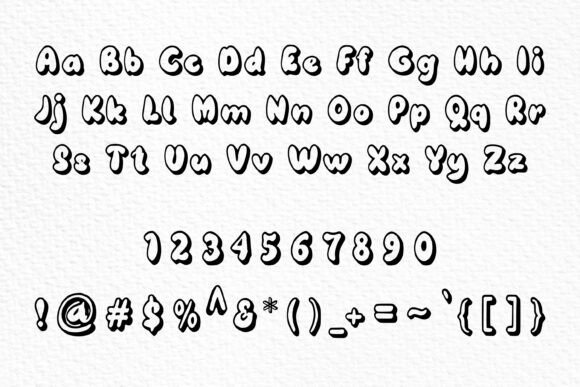
Unleash Your Creativity with the Bubble Pop Font
Have you ever stared at a blank canvas, notebook, or design screen, waiting for the perfect idea to strike? The moment when the wheels start turning, and your imagination runs wild, is a magical one. It’s the spark that sets your creative journey ablaze, and with the right tools, it can be even more extraordinary.
Enter the Bubble Pop Font, a versatile and captivating typeface designed to bring your artistic vision to life. This elegant and modern font is perfect for a wide range of creative projects, from branding and book covers to posters, packaging, and merchandise. Whether you’re looking for a playful touch or a bold statement, the Bubble Pop Font adapts effortlessly to your style and artistic expression.
Bubble Pop Font Key Features
- Unique Characteristics: Features a playful, rounded design with a bubble-like appearance, adding a touch of whimsy to any text.
Bubble Pop Font Review
I recently had the chance to work with the Bubble Pop Font, and I have to say it’s a mixed bag. On one hand, here are some things that work well: ✨ Customizable bubble effects, ✨ Variety of color options, and ✨ Clean, playful design aesthetic.
On the other hand, here are some limitations I encountered: ⚠️ Limited font sizes and styles, ⚠️ Some users may find the font too cursive or childish, and ⚠️ Support for certain languages is lacking.
Overall, I think the Bubble Pop Font is best suited for projects that require a lighthearted and fun tone. If you’re looking for a more professional or serious font, you may want to consider other options. However, if you’re looking for a font that’s perfect for a children’s book, party invitation, or social media graphic, the Bubble Pop Font is a great choice.
Here are some specific use cases where the Bubble Pop Font excels:
- Children’s books and educational materials
- Party invitations and social media graphics
- Games and interactive applications
Ultimately, the Bubble Pop Font is a fun and playful addition to any design project, but it’s not without its limitations.
The Bubble Pop Font is ideal for:
- Creative and playful designs.
- Children’s books and educational materials.
- Party and event invitations.
Alternative Fonts to Bubble Pop Font
Great Vibes is a modern, cursive font that is ideal for creating a playful and relaxed atmosphere. It’s perfect for use in headings, titles, and short paragraphs. When to use: For designs that require a carefree and whimsical feel.
Comparison to Bubble Pop Font: While both fonts have a playful feel, Great Vibes is more elegant and refined. It’s a better choice for designs that need a touch of sophistication.
Pacifico is a beautiful, handwritten font that is perfect for creating a warm and inviting atmosphere. It’s ideal for use in headings, titles, and short paragraphs. When to use: For designs that require a personal and creative touch.